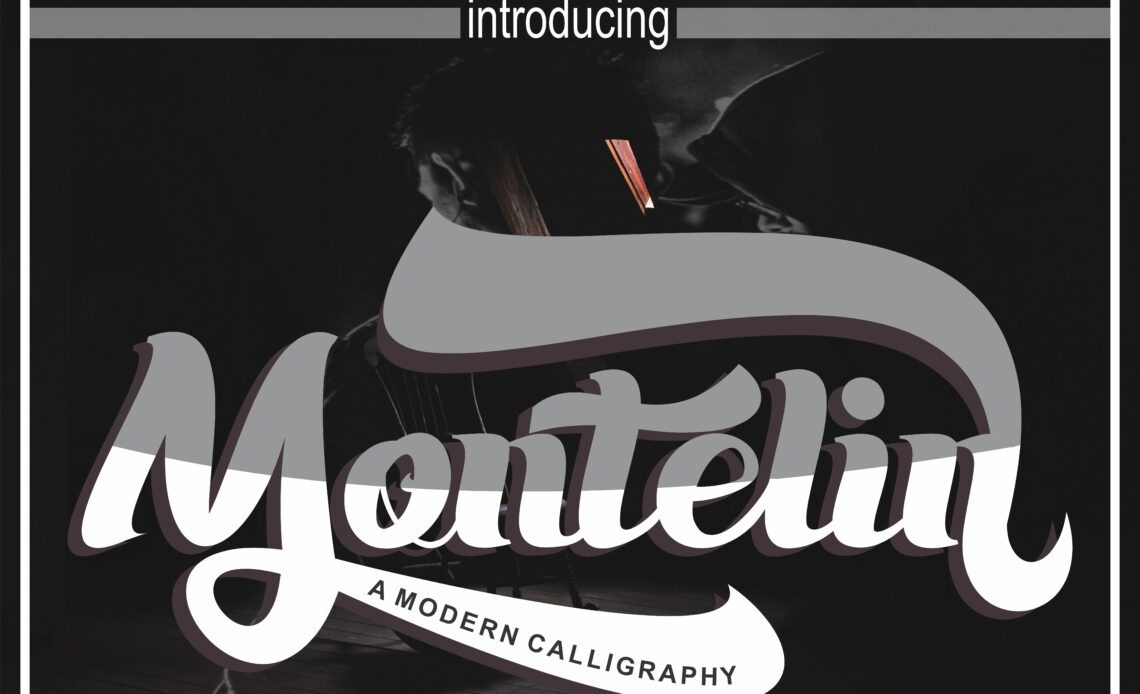
Montelin Font
Embark on a typographic adventure with Montelin, the script font that captures the essence of handwritten elegance. Crafted by Urban Store, this font family dances across your designs, bringing a touch of individuality and charm.
Montelin's graceful swashes and decorative characters lend a whimsical touch to your branding, apparel, and signage. Its expressive baseline adds a dynamic rhythm, making your words come alive. Whether you're creating logos, invitations, or social media graphics, Montelin adds an artistic flair that captivates and inspires.
Immerse yourself in the world of Montelin and discover a font that resonates with your creative spirit. Let your designs flourish with the beauty of handcrafted calligraphy, leaving a lasting impression on your audience. Seize the opportunity to make your designs shine with Montelin's enchanting presence.